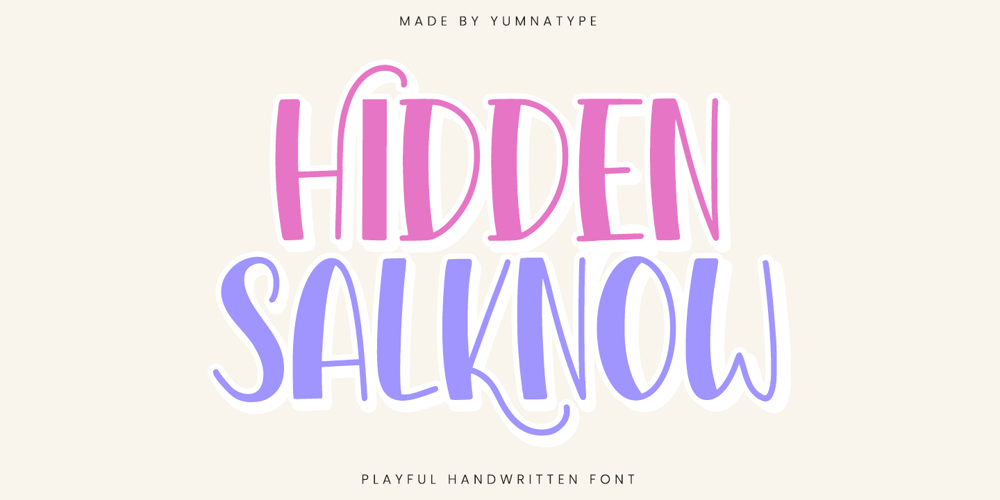
Hidden Slknow
Hidden Slknow font
Hidden Slknow Font Family was designed by Donis Miftahudin and published by Yumna Type. Hidden Slknow contains 1 styles and family package options. Hidden Salknow is a delightful handwritten font that captures a playful spirit with its large, eye-catching letters. Designed with a light weight, this font brings a touch of whimsy to any project without overwhelming the design.The playful style of Hidden Salknow is highlighted by its rounded shapes, giving each character a friendly and approachable feel.Despite its lightweight, the high contrast in the letters ensures excellent readability and visual appeal, making it stand out in various applications. The consistent letter proportions contribute to a harmonious and balanced appearance. In addition, enjoy the features here.Features: Ligatures Stylistic Sets Multilingual Supports PUA Encoded Numerals and Punctuations Hidden Salknow fits in headlines, logos, posters, flyers, branding materials, print media, editorial layouts, and many more designs. Find out more ways to use this font by taking a look at the font preview. Thanks for purchasing our fonts. Hopefully, you have a great time using our font. Feel free to contact us anytime for further information or when you have trouble with the font. Thanks a lot and happy designing. –Uppercase